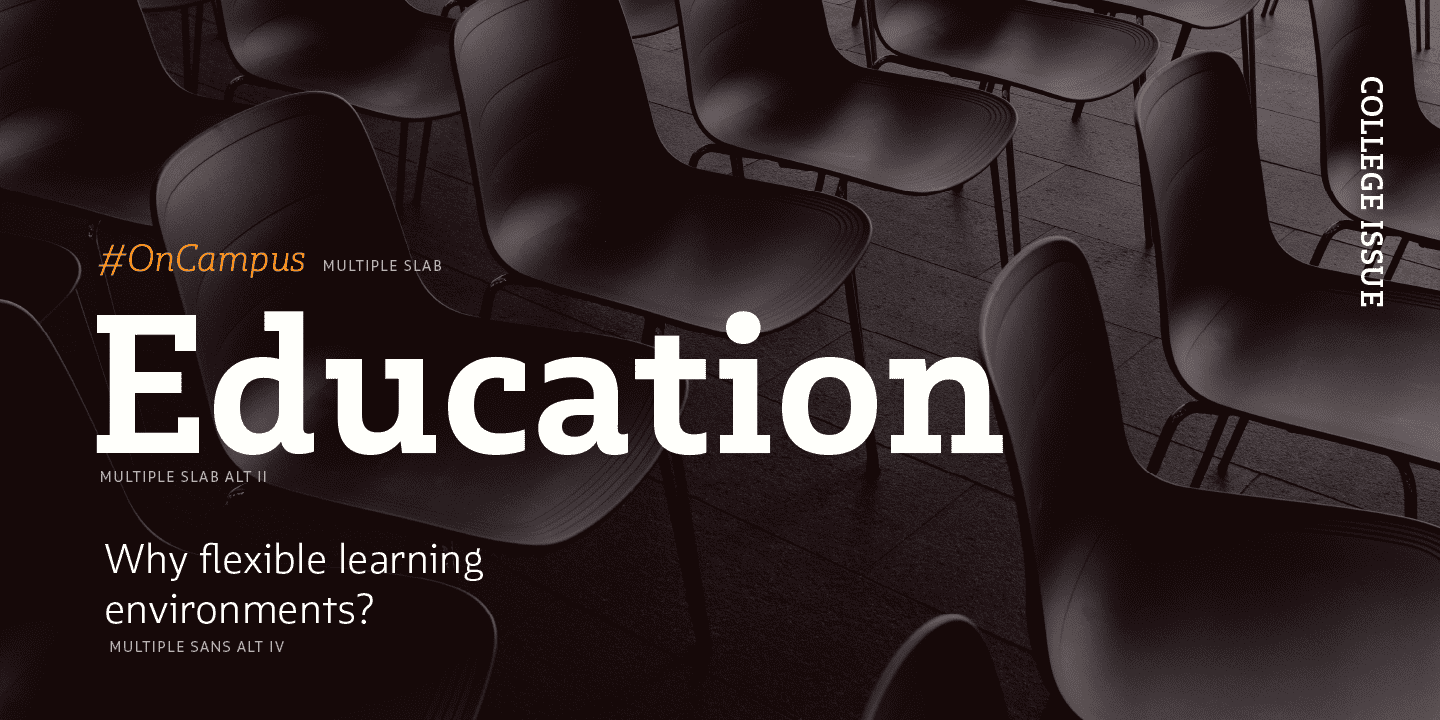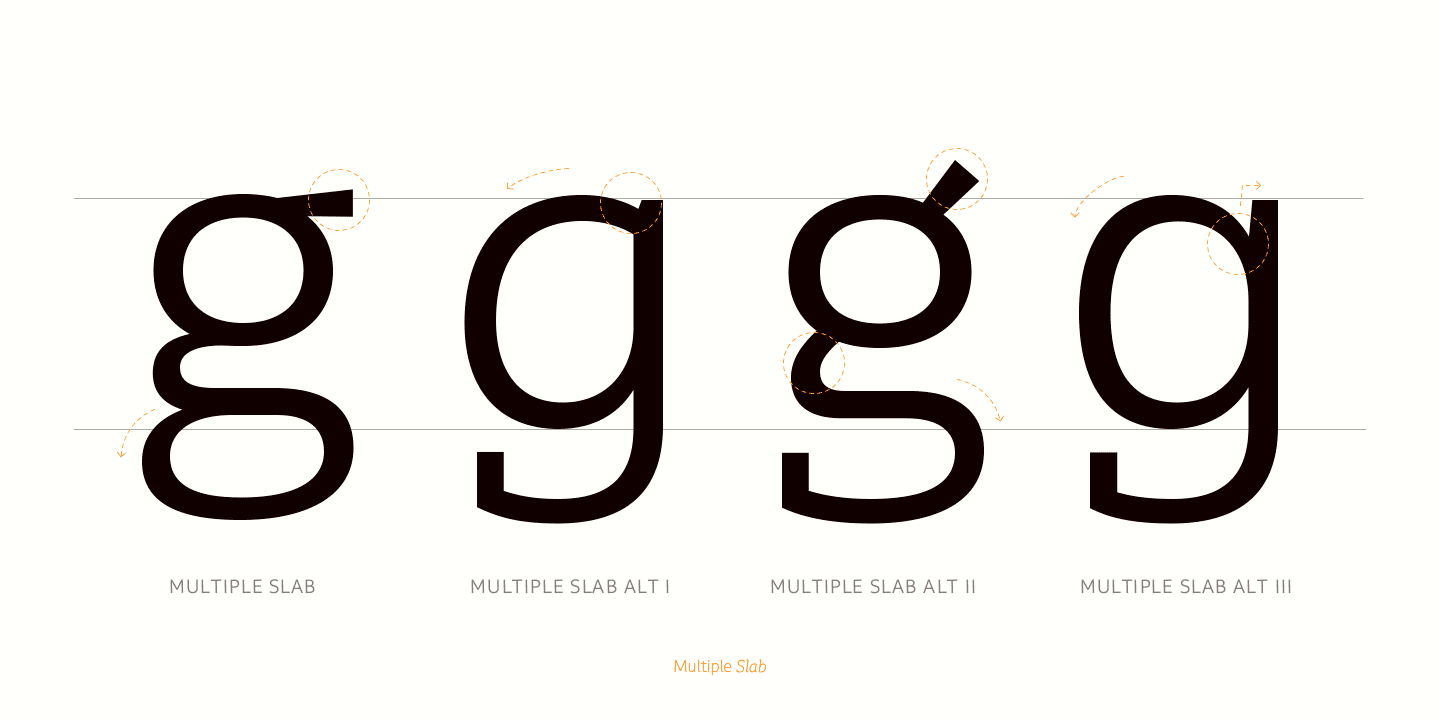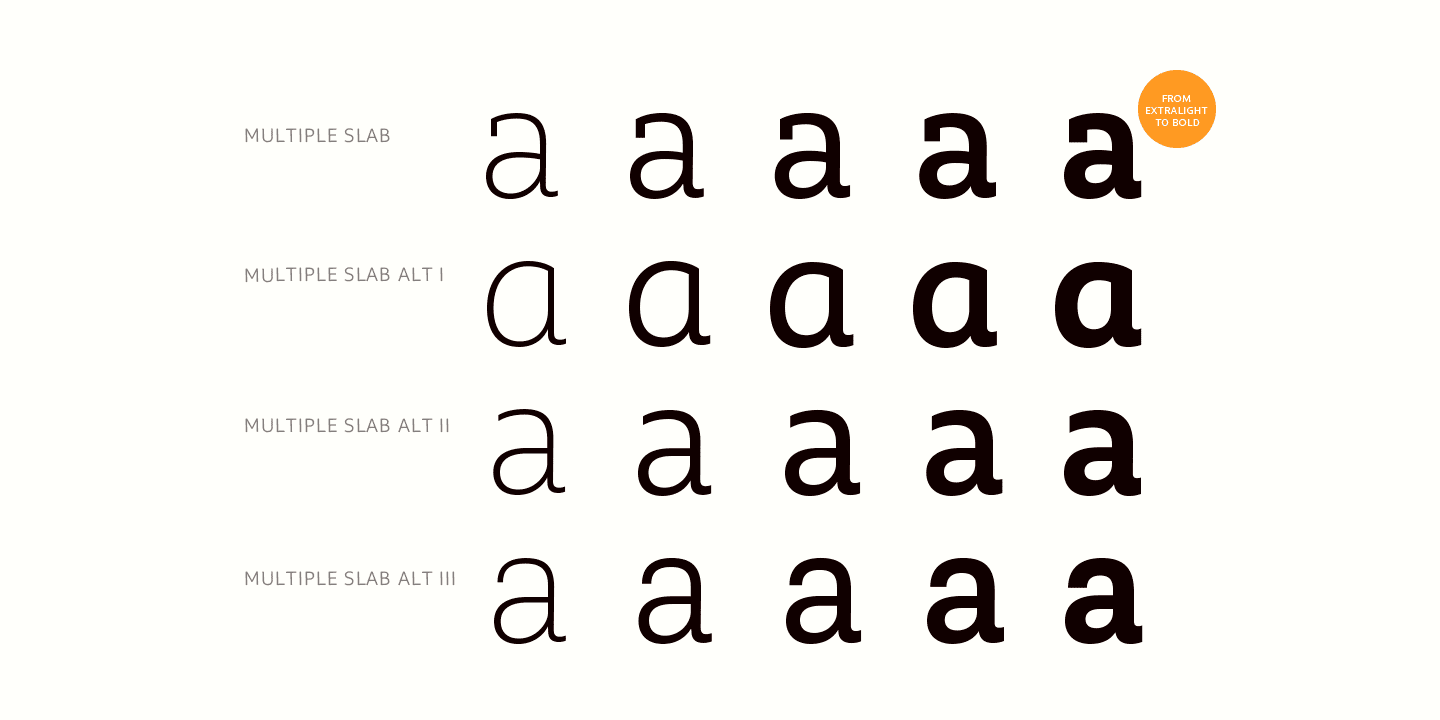
Multiple features soft, rounded shapes and large counterforms which make it well-suited for both text and display usage. The proportions are based on classic typefaces yet its design was specially created to provide a high degree of versatility.
Multiple contains different stylistic sets whose variety of glyphs provides a wide range of choices for any design project. Partly humanist and partly grotesque, Multiple comes with a number of font variants that will help you choose the style will best meet your needs. The font also includes a serif version with the same number of variants as its sans counterpart. The sans version includes 4 stylistic sets while its slab companion comes with 3 sets, both available as separate alt family packages (ideal for those seeking ready-to-use alternate glyph sets). These alternate characters are also available as OpenType features in the regular versions.
Multiple comes in 5 weights - ranging from Extra Light to Bold - with matching italics, and contains a 395-character set that supports 207 different languages.
Multiple: one font, multiple faces.
OpenType features: Old-style Digits, Ligatures, Alternates, Superscript